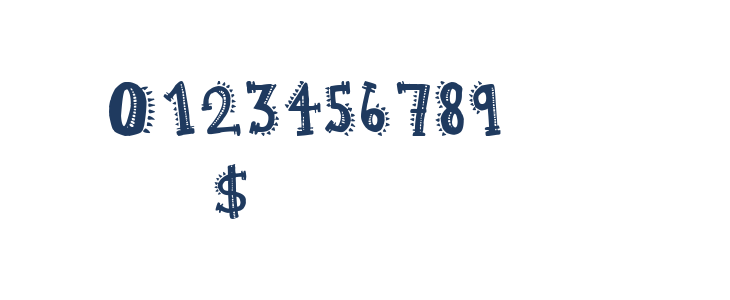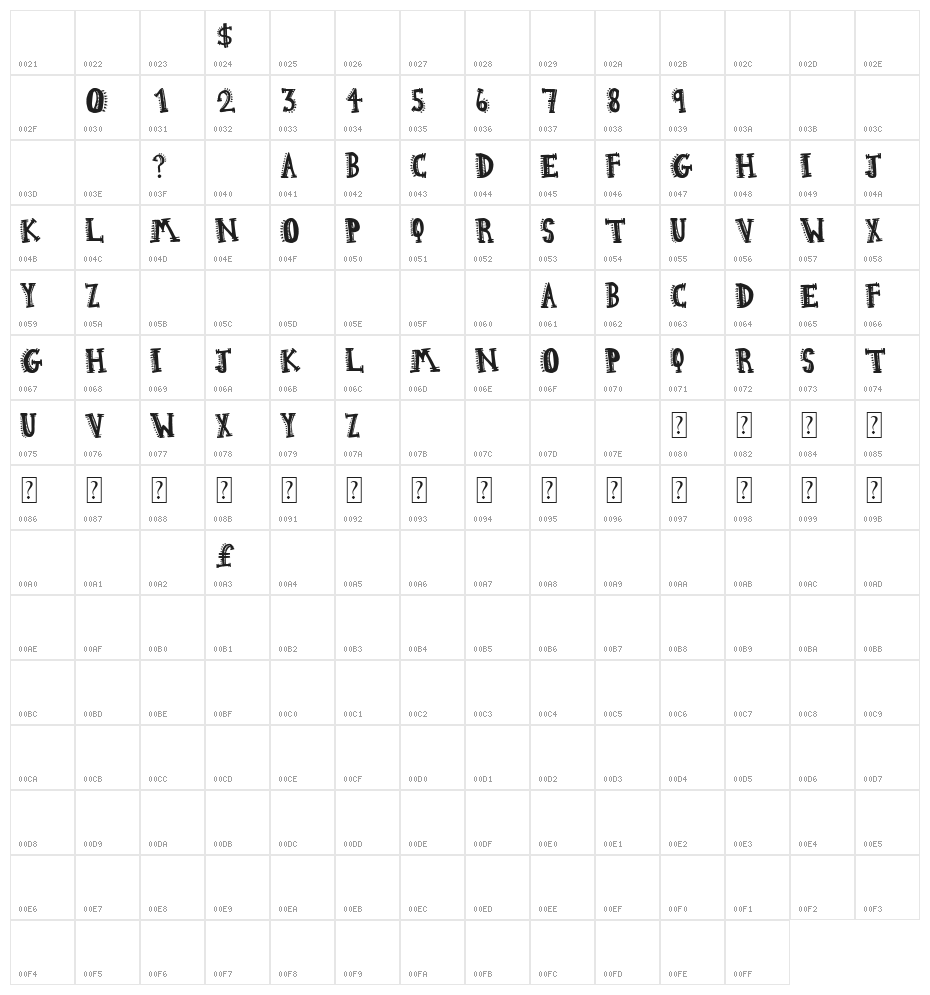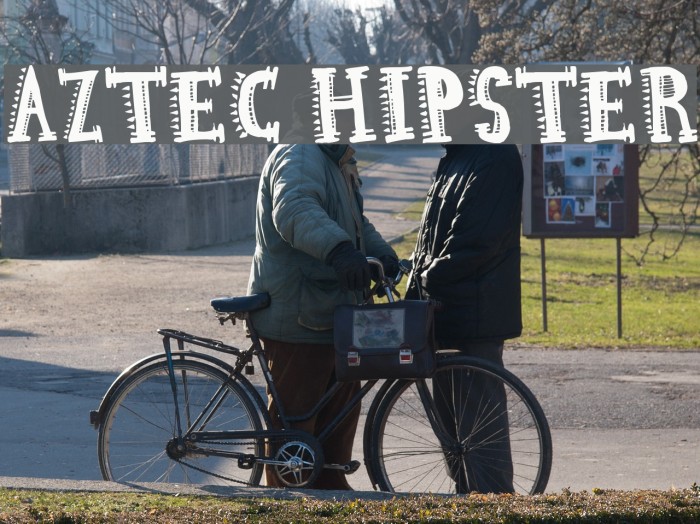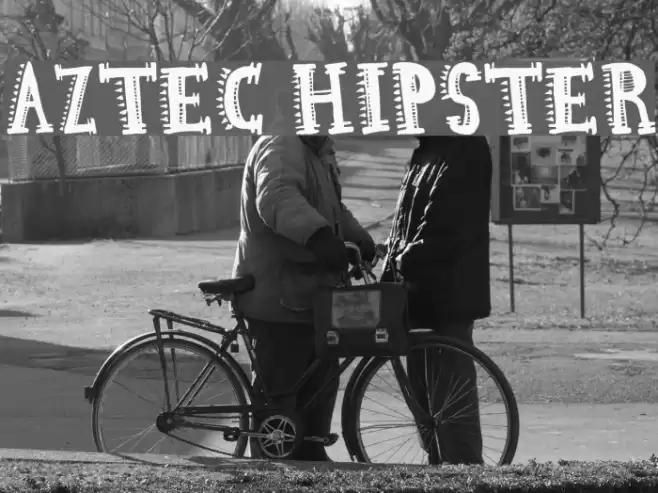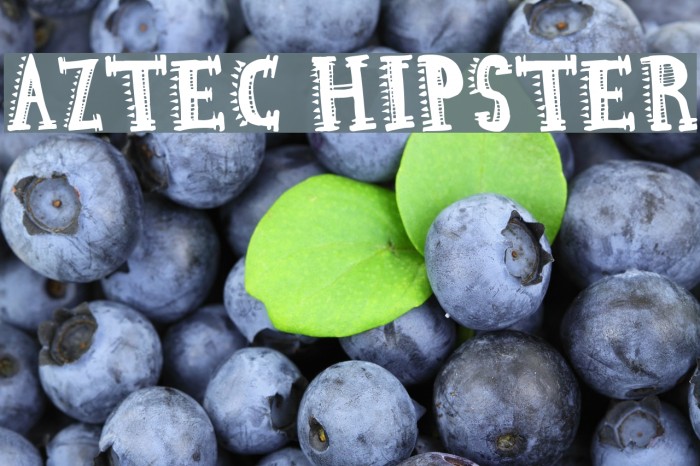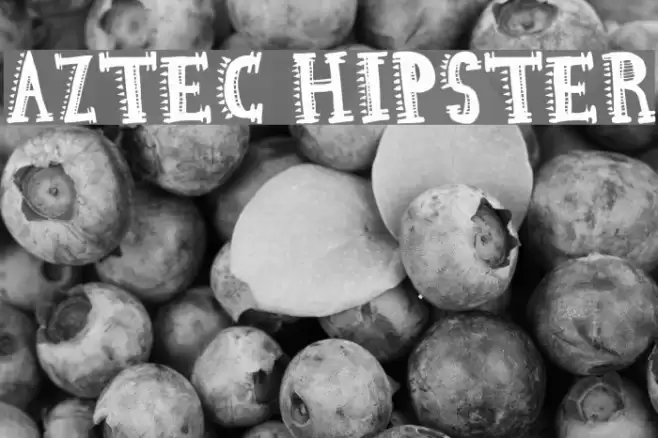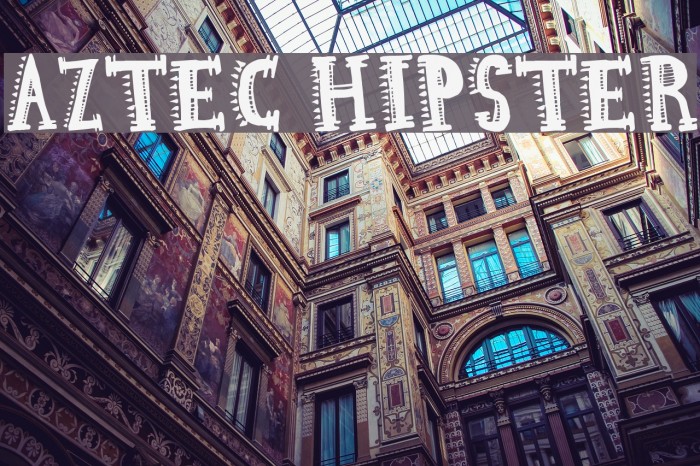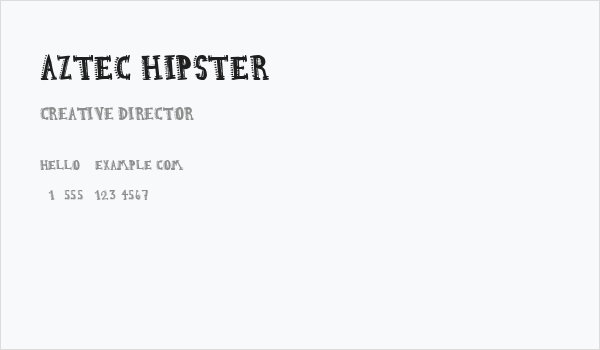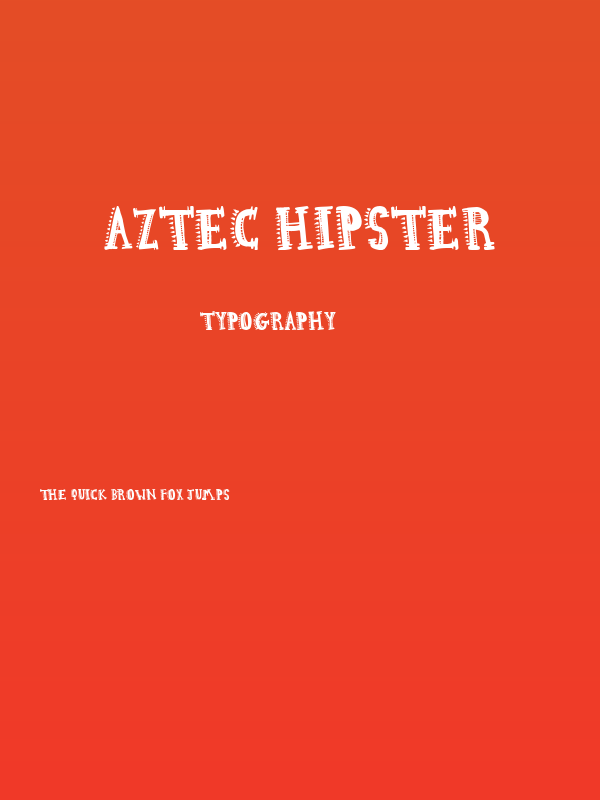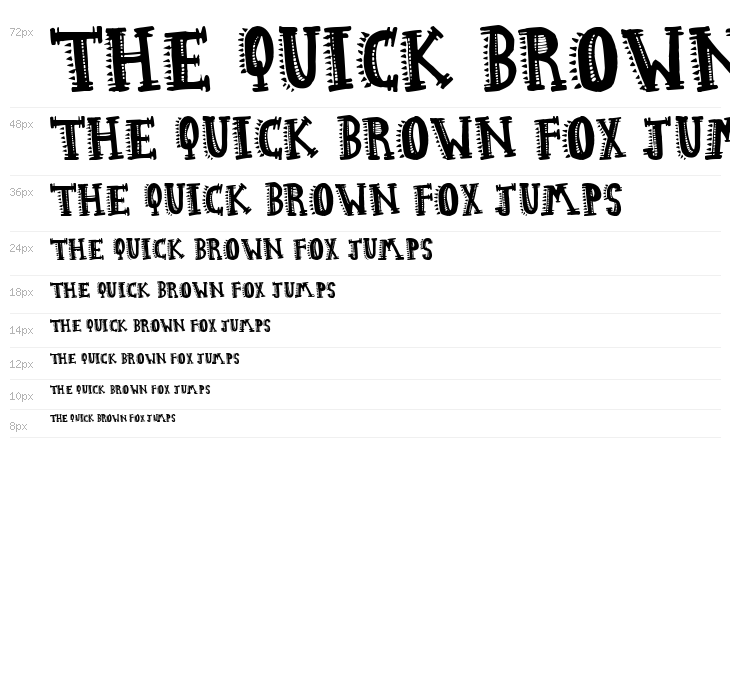
Aztec Hipster Font
Aztec Hipster Description
This font features a bold and decorative style with a distinct tribal or Aztec influence. The characters are embellished with intricate patterns and geometric shapes, giving them a unique and eye-catching appearance. The uppercase and lowercase letters maintain a consistent style, with angular lines and decorative elements that add a sense of movement and rhythm. The numbers and special characters are equally stylized, ensuring a cohesive look across all text. This font is perfect for projects that require a bold statement or a touch of cultural flair.
AZTEC-HIPSTER UPPERCASE
AZTEC-HIPSTER LOWERCASE
AZTEC-HIPSTER OTHER CHARS
| Proposed Projects | Ideal for branding, posters, cultural event promotions, and artistic projects that require a bold and unique typeface. |